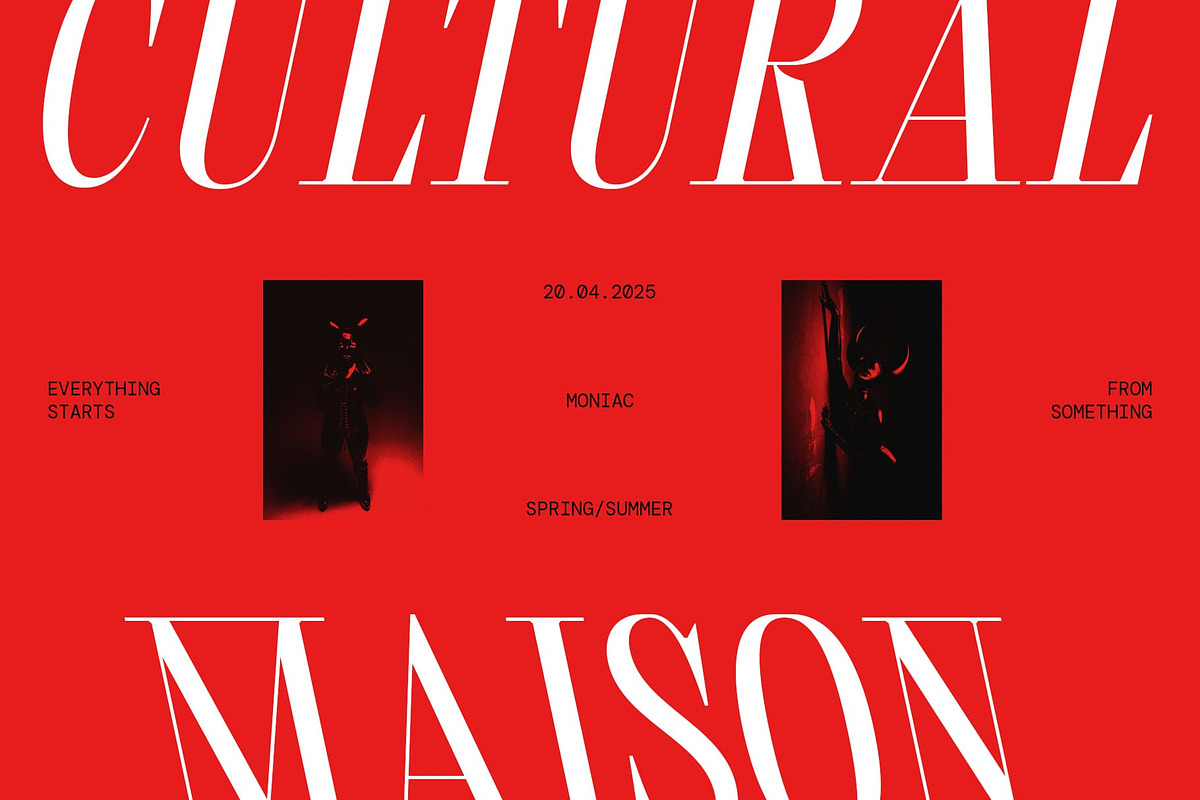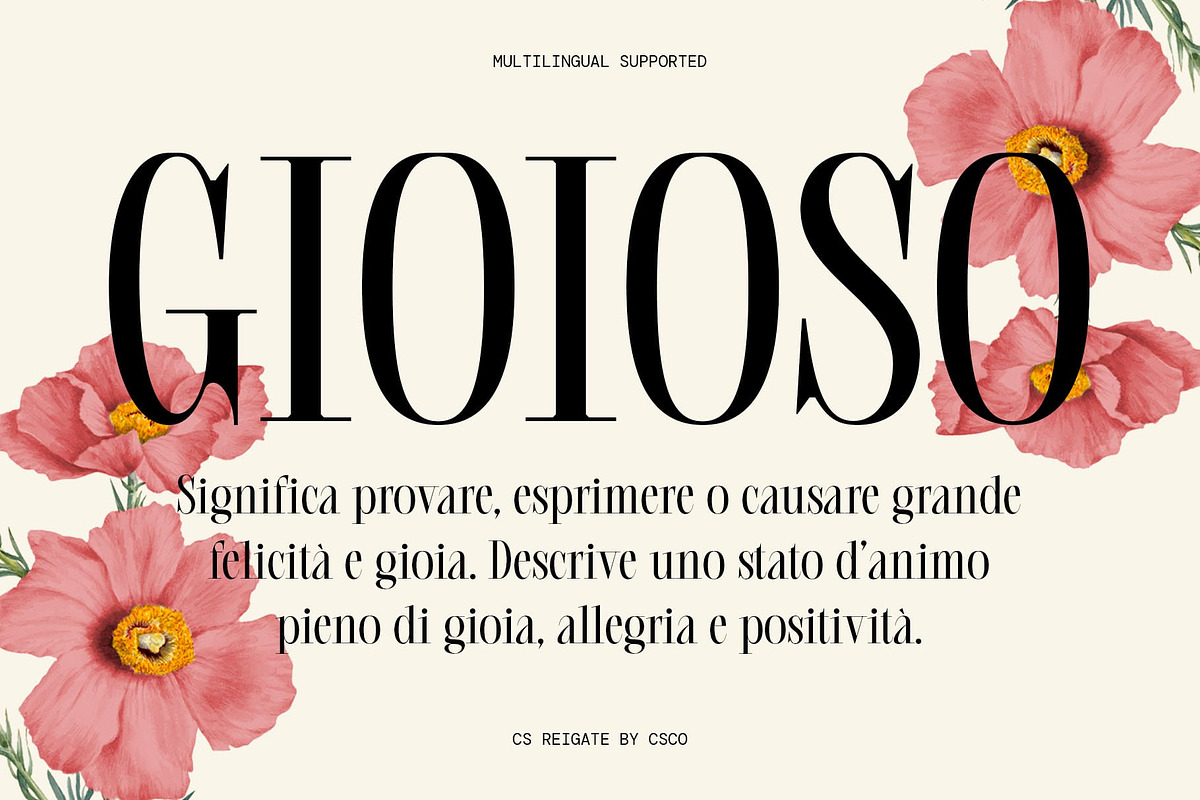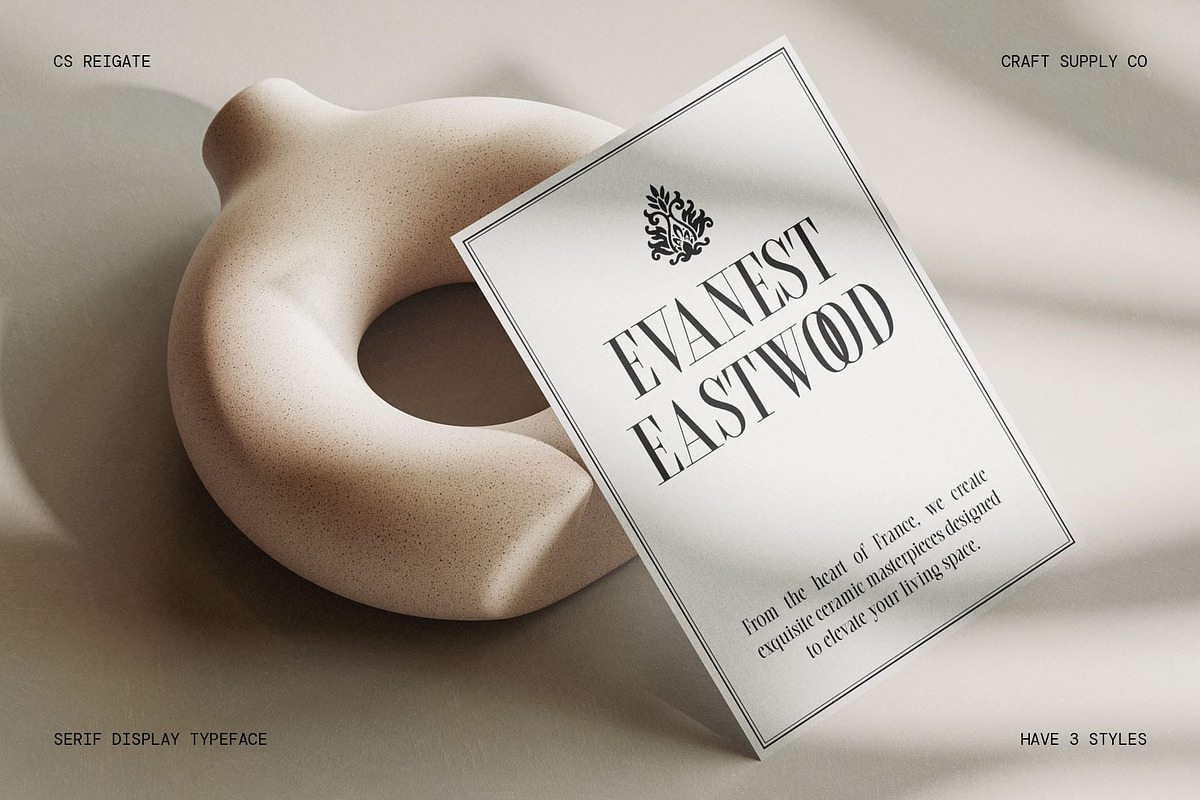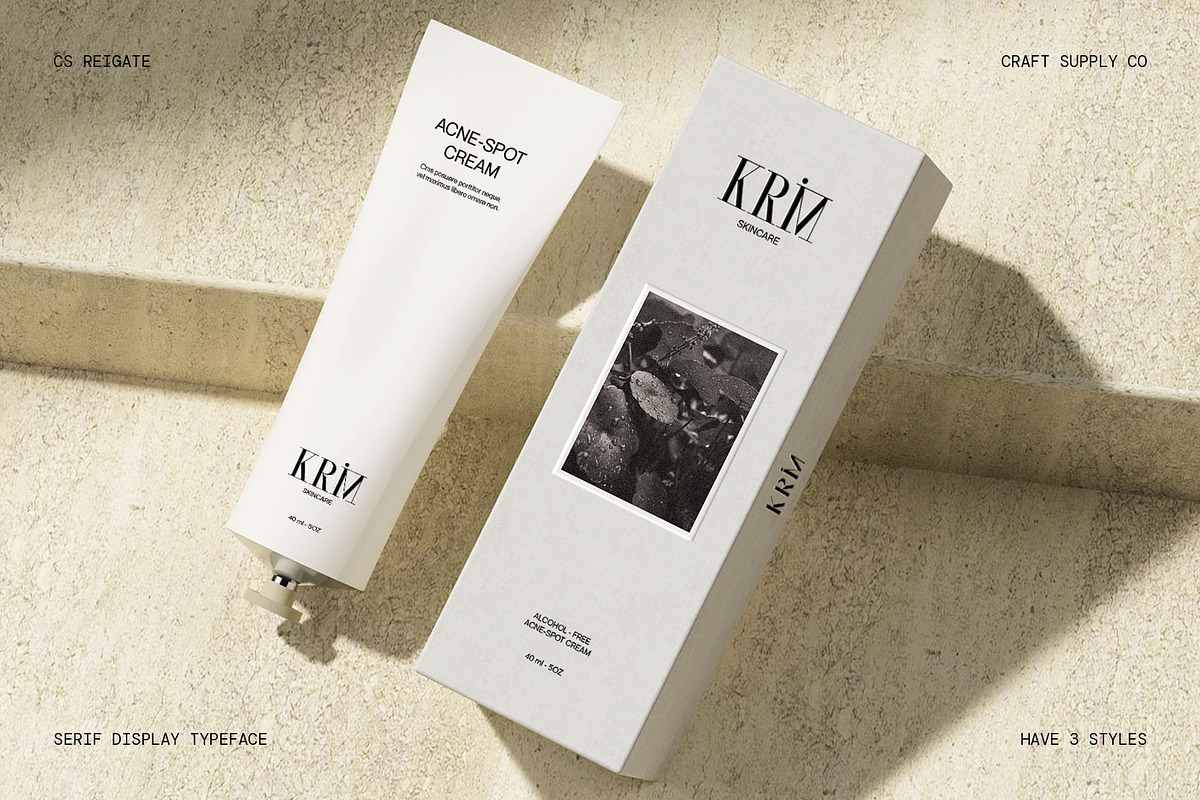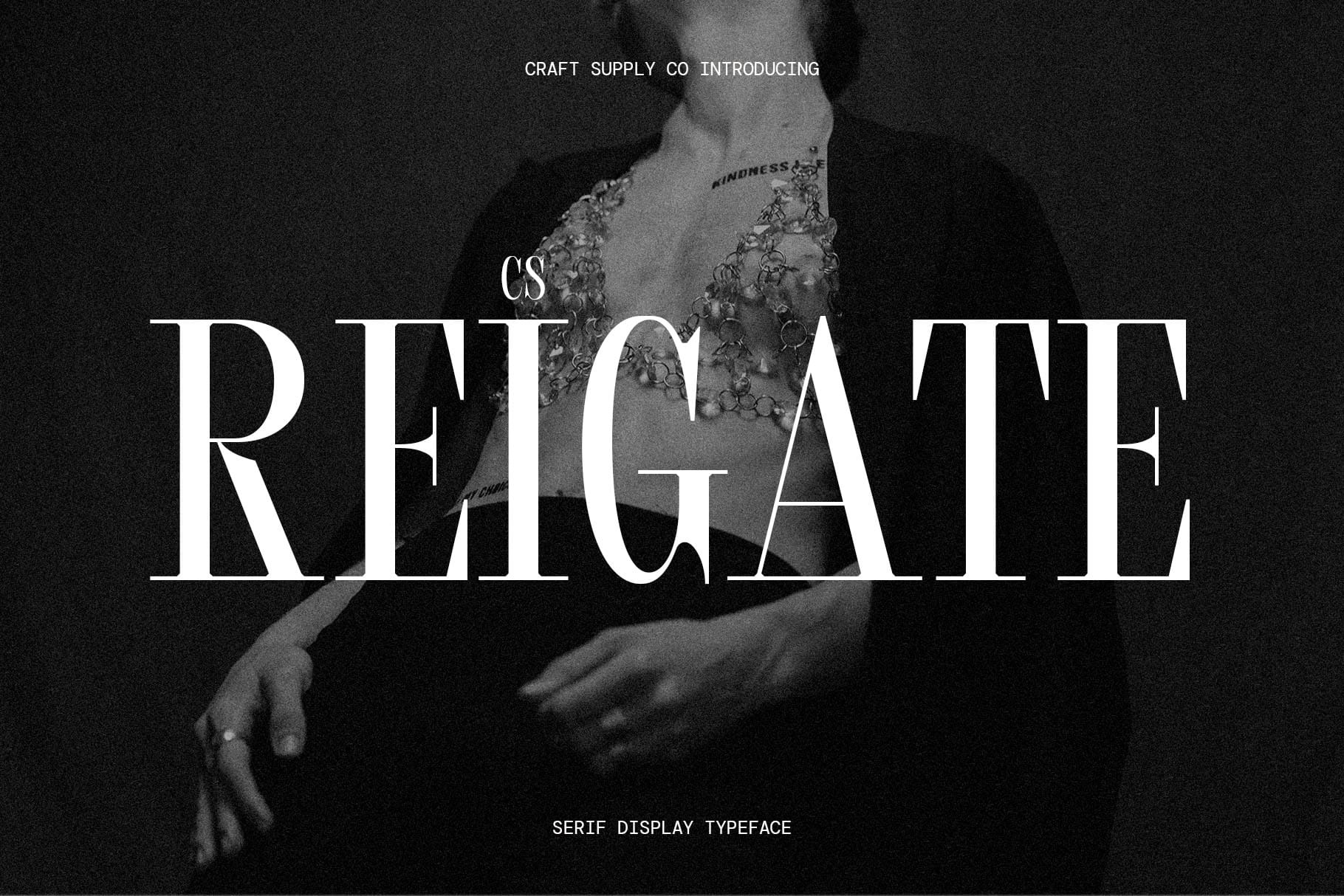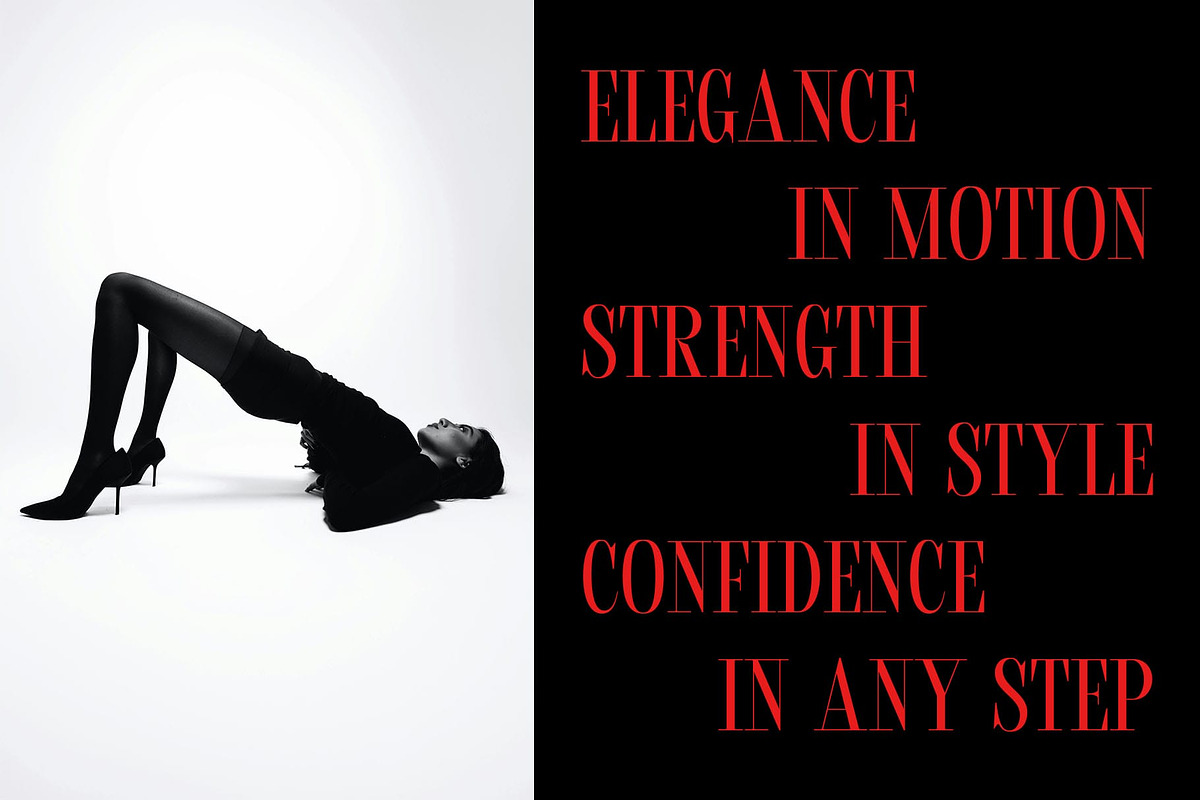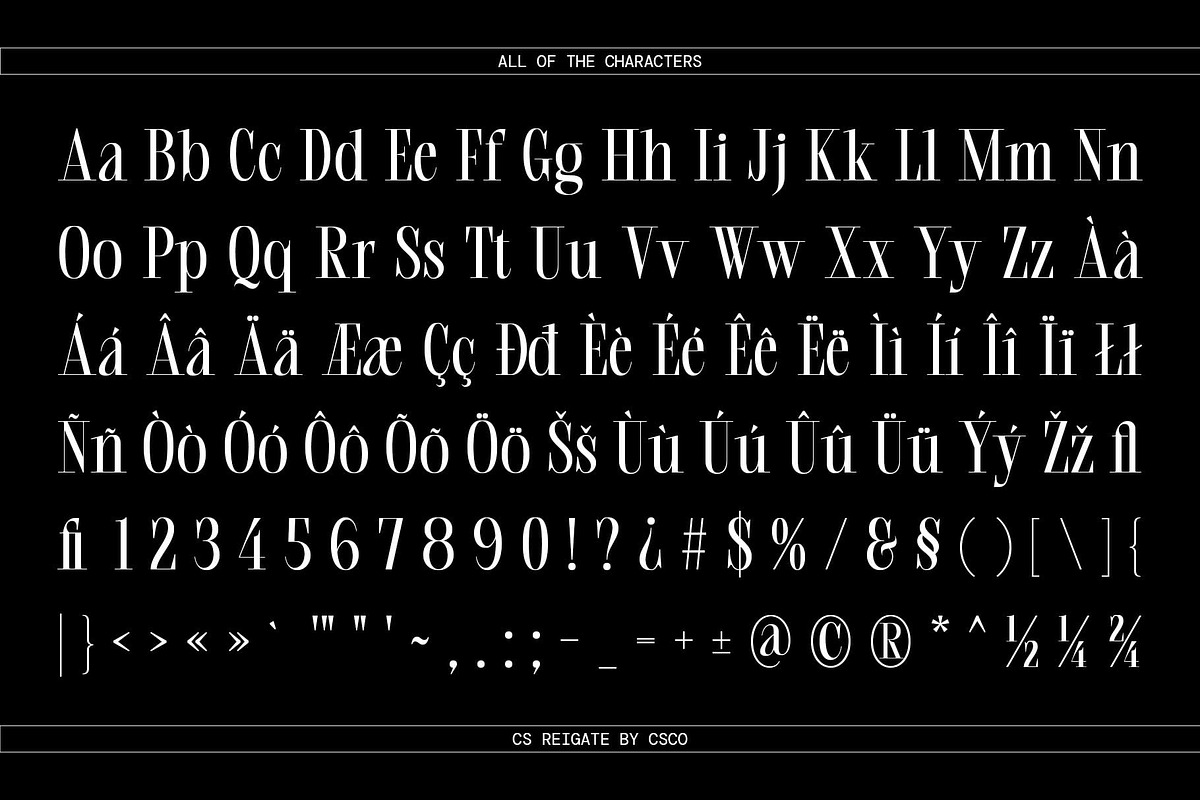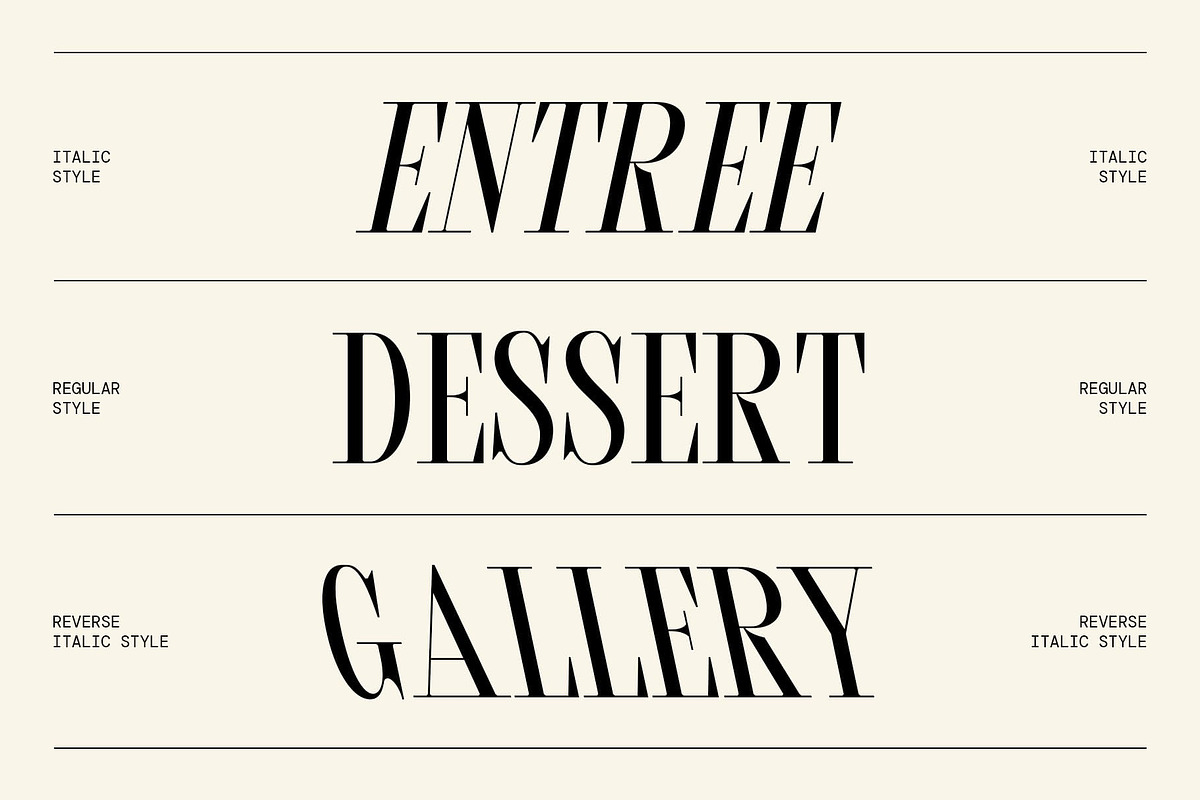
CS Reigate – Classic Font
CS Reigate – A Timeless Classic Serif Font
Refined Elegance with a Modern Touch CS Reigate is a classic modern serif font that embodies sophistication, luxury, and timeless beauty. Inspired by Didone typography, it features high contrast between thick and thin strokes, sharp, delicate serifs, and a clean, polished aesthetic. The graceful structure balances classic refinement with contemporary minimalism.
Versatile and Sophisticated for Any Project CS Reigate offers a perfect blend of tradition and modernity, making it versatile across various design fields. Its elegant yet bold letterforms command attention while maintaining a sense of sophistication and clarity. This font is well-suited for editorial layouts, magazine headlines, luxury branding, corporate identities, and high-fashion campaigns.
Perfect for Luxury Branding and Editorial Excellence Whether used in premium packaging, invitations, fashion branding, or business presentations, CS Reigate elevates the visual appeal with its impeccable design. It works beautifully for high-end logos, professional stationery, and refined advertising materials, making it a go-to typeface for those who demand elegance, authority, and sophistication in their work.
A Statement of Timeless Beauty CS Reigate isn’t just a typeface—it’s a statement of prestige and excellence. Its graceful yet powerful form ensures a luxurious and professional presence in any creative project. Elevate your designs with the sophistication of classic serif typography and make an unforgettable impression.
- CS Reigate Regular
- CS Reigate Italic
- CS Reigate Reverse Italic